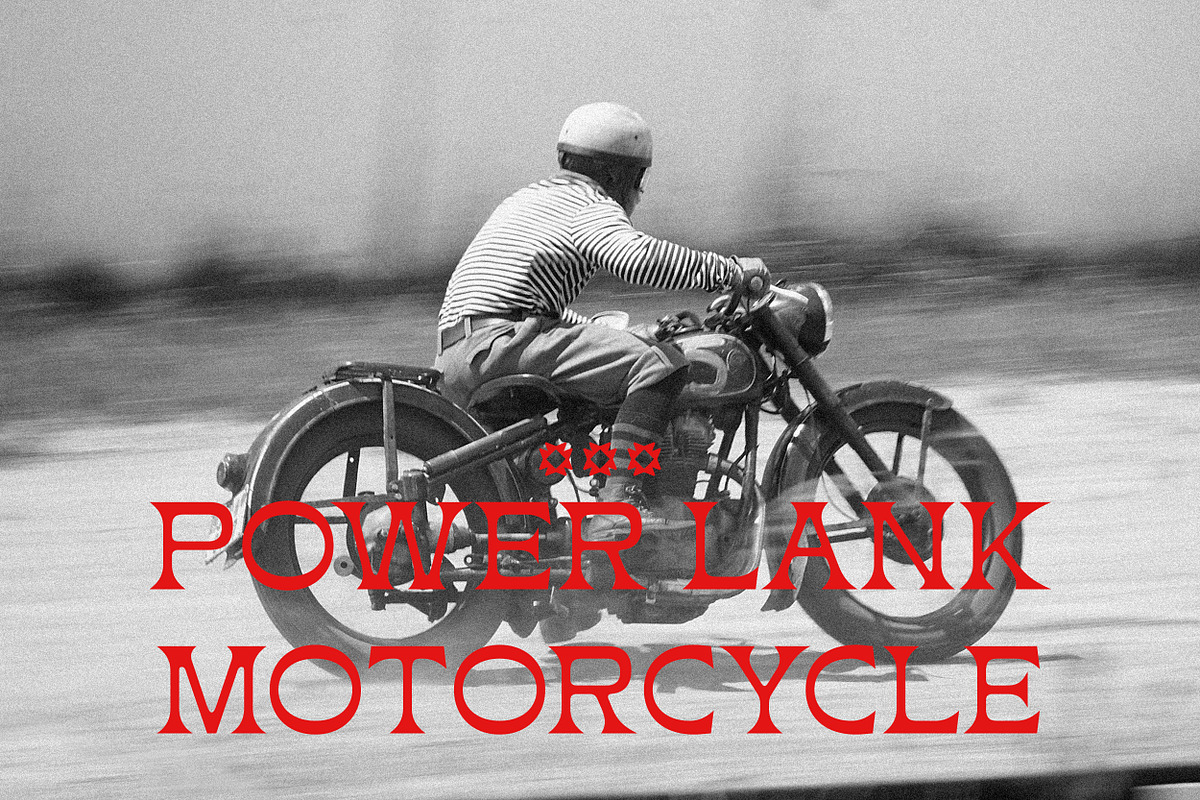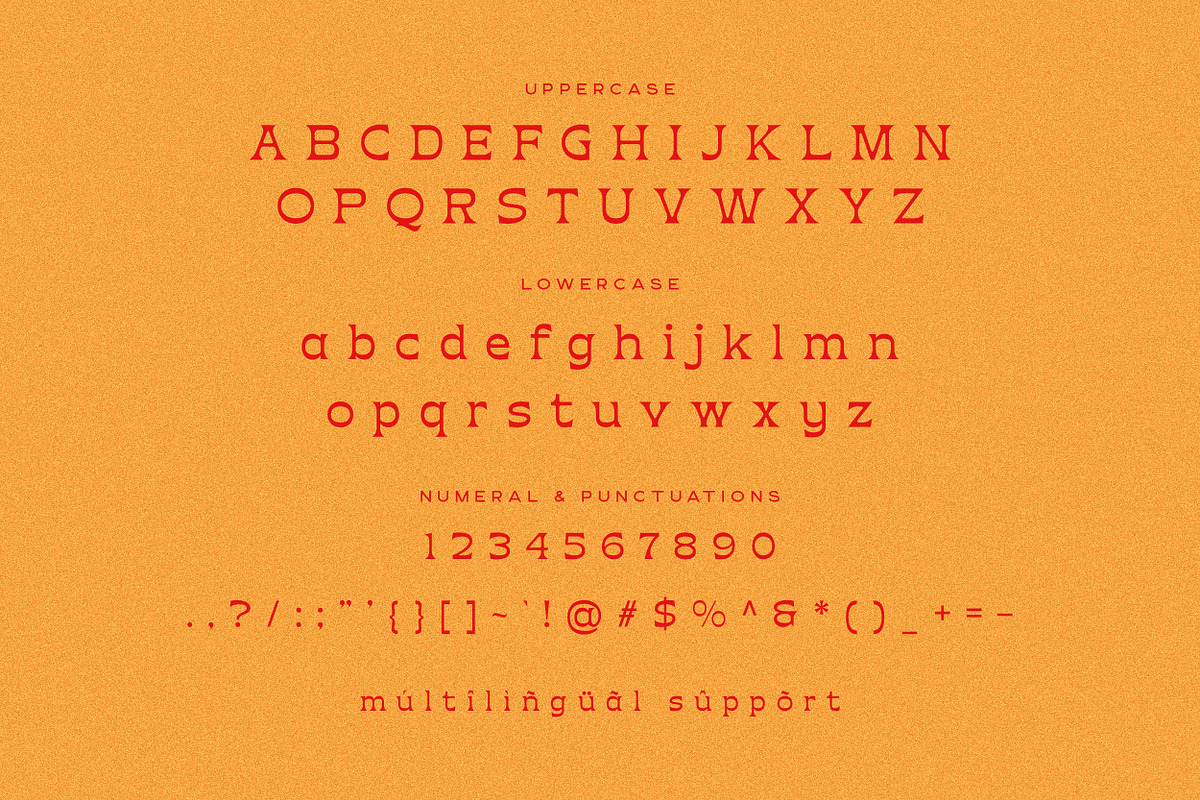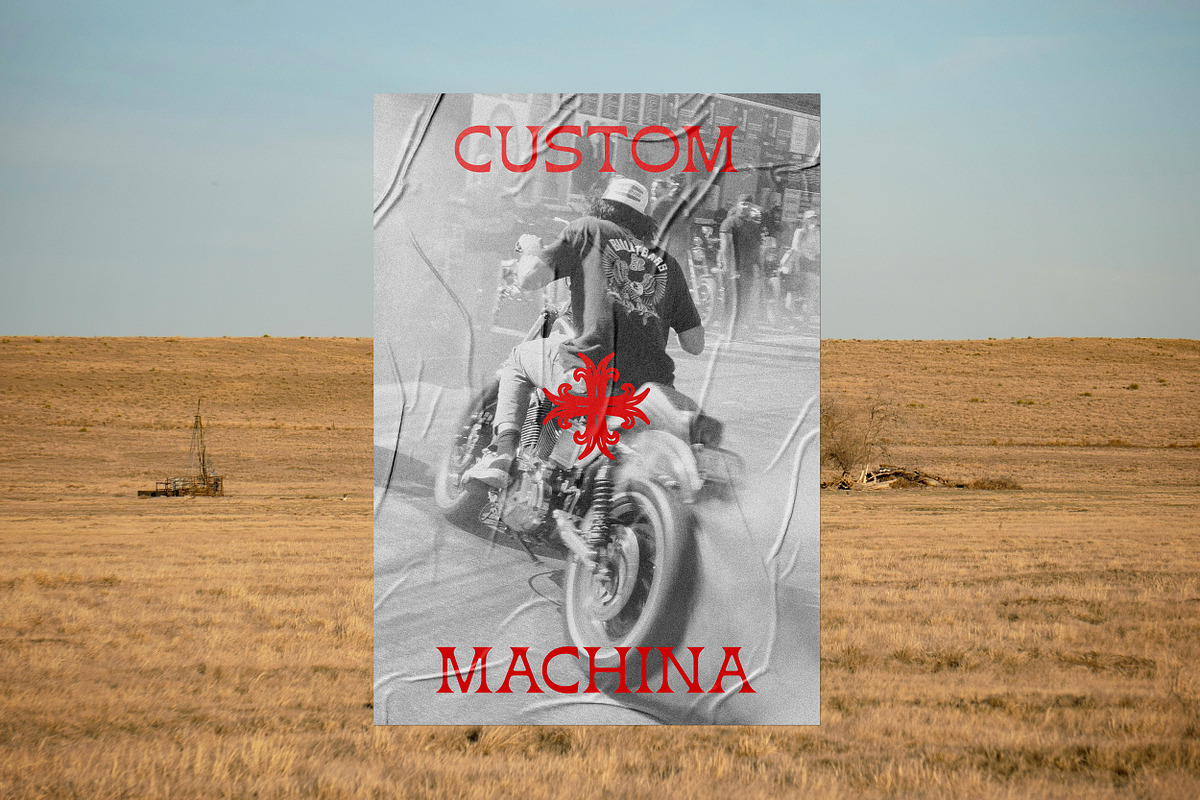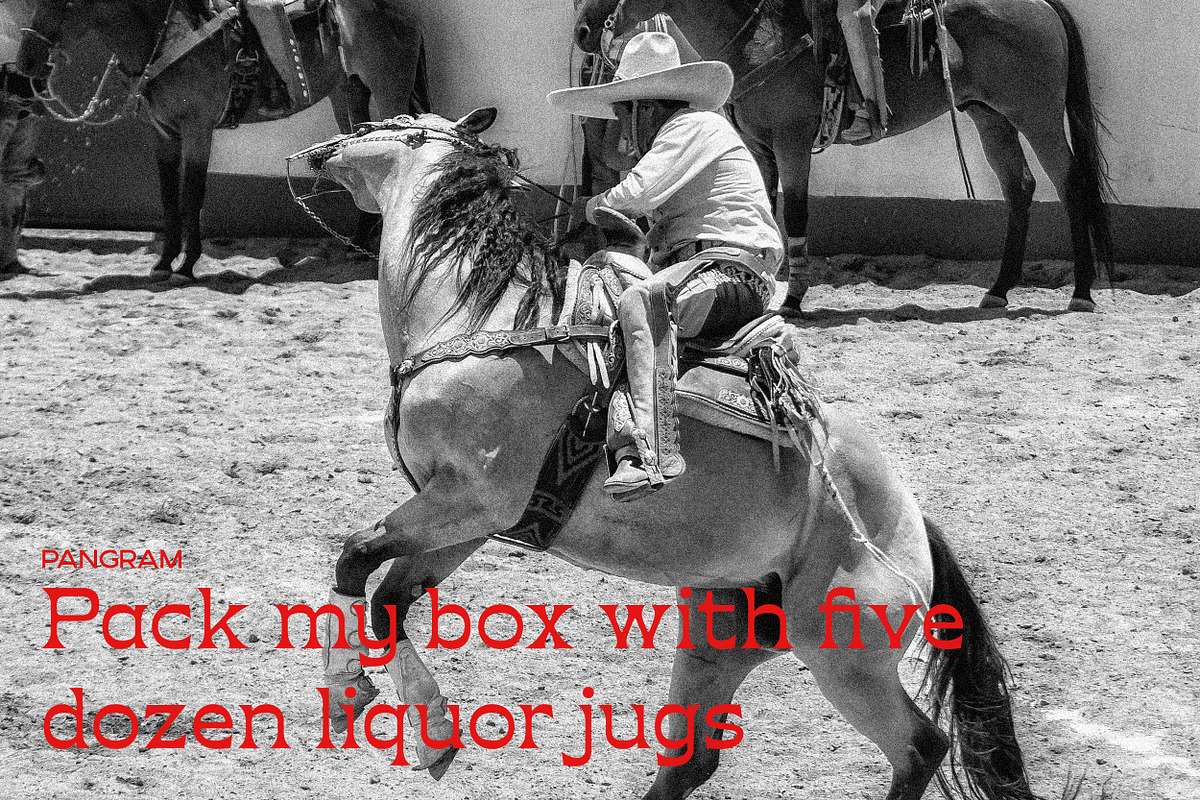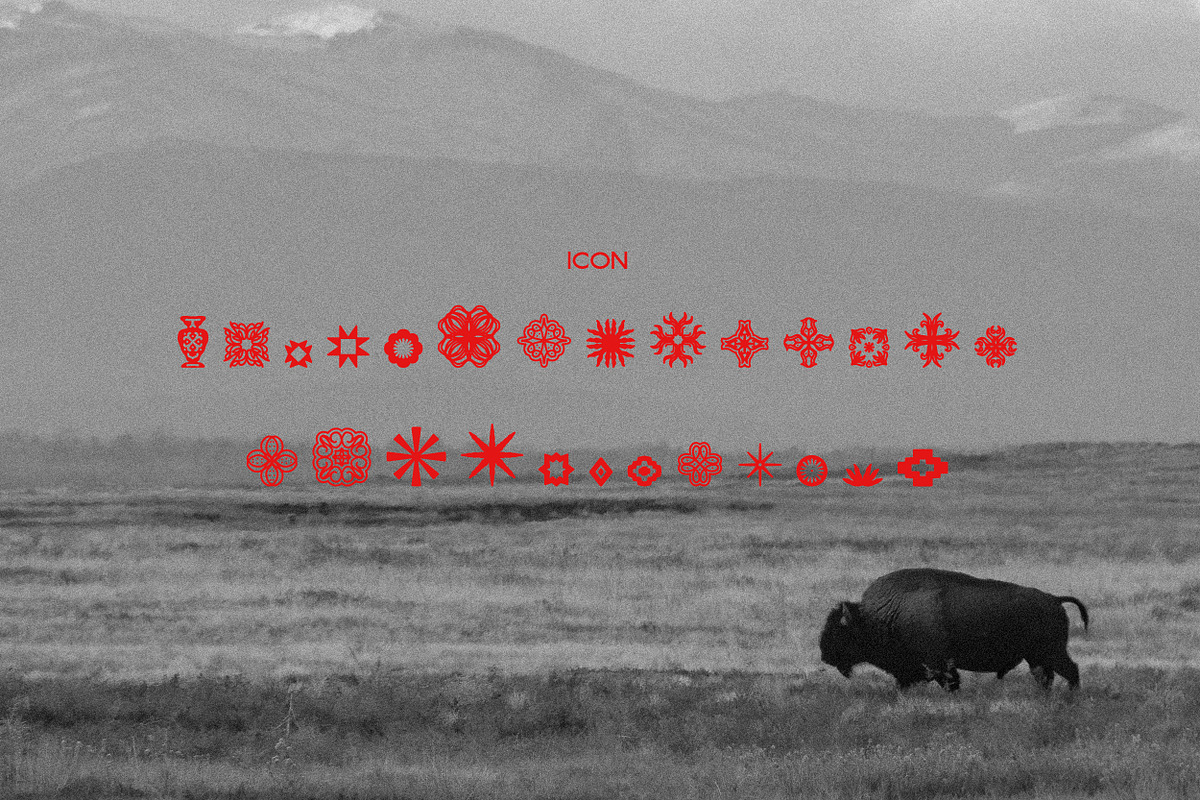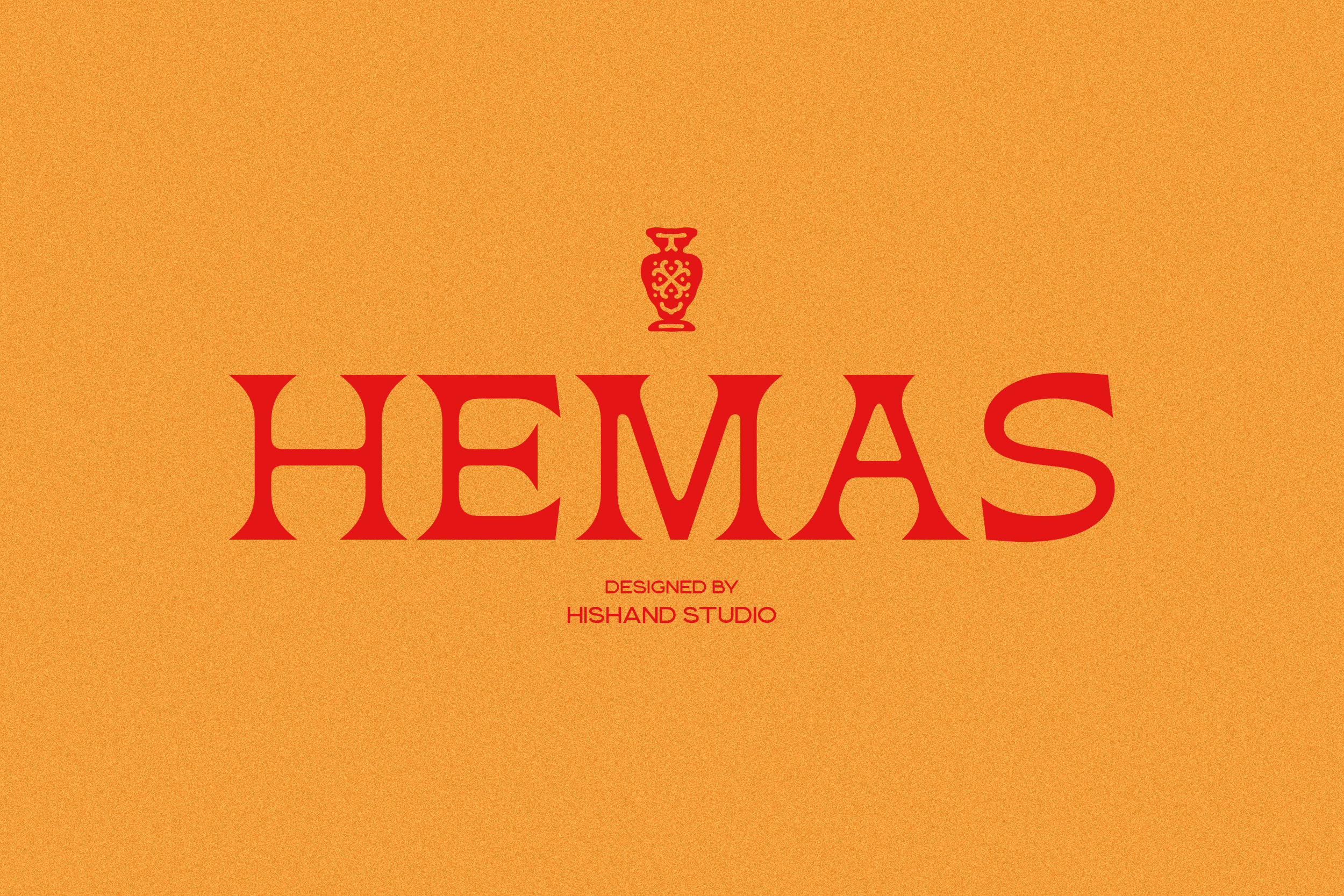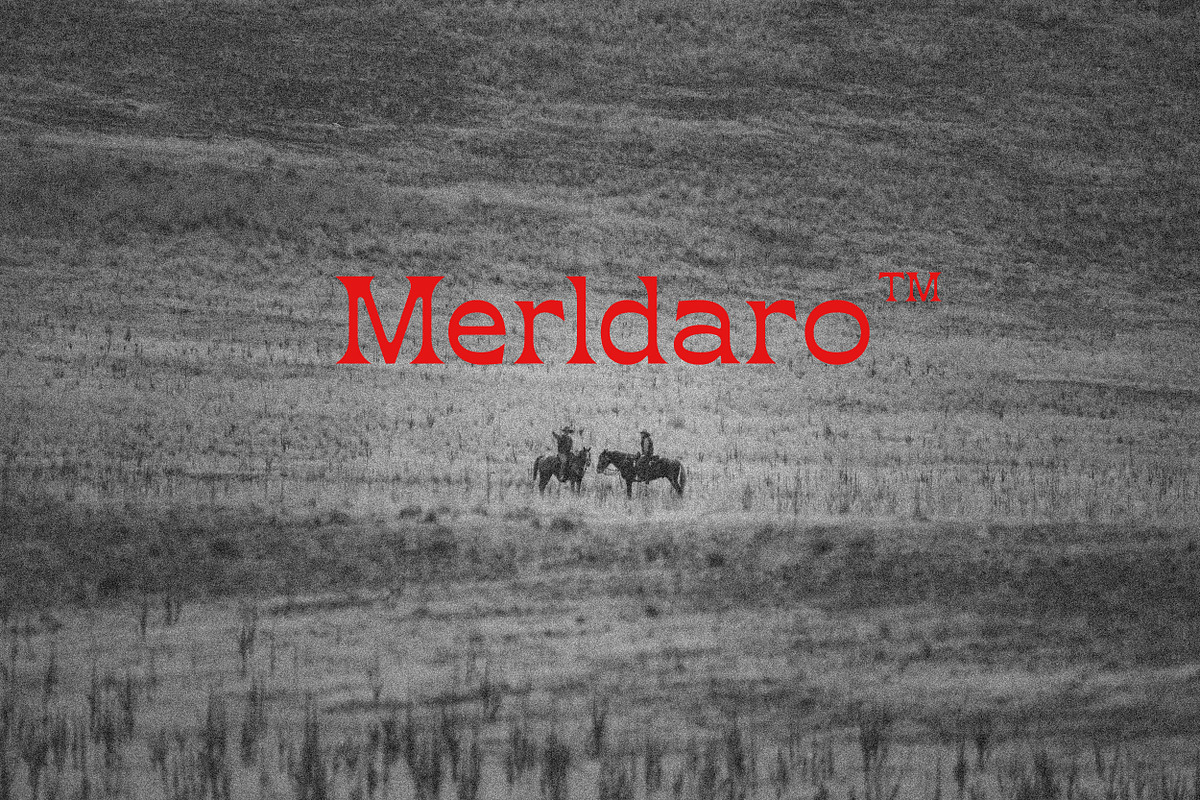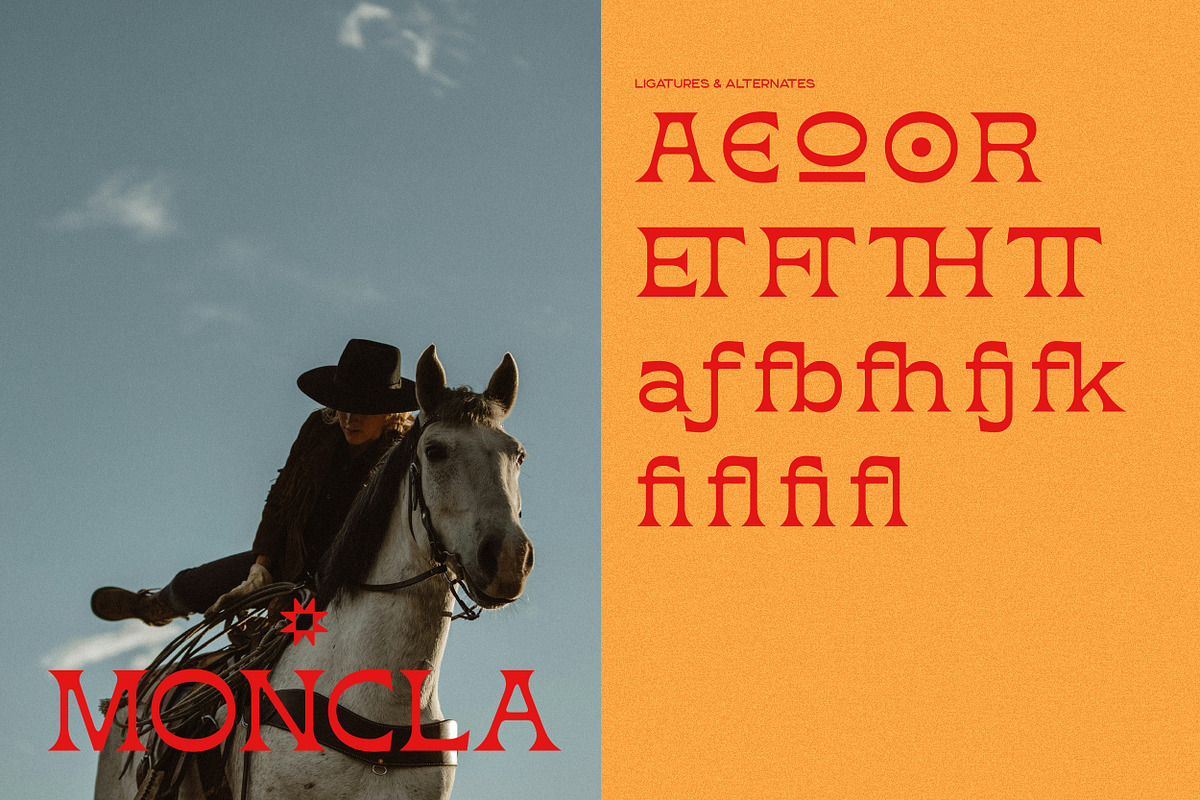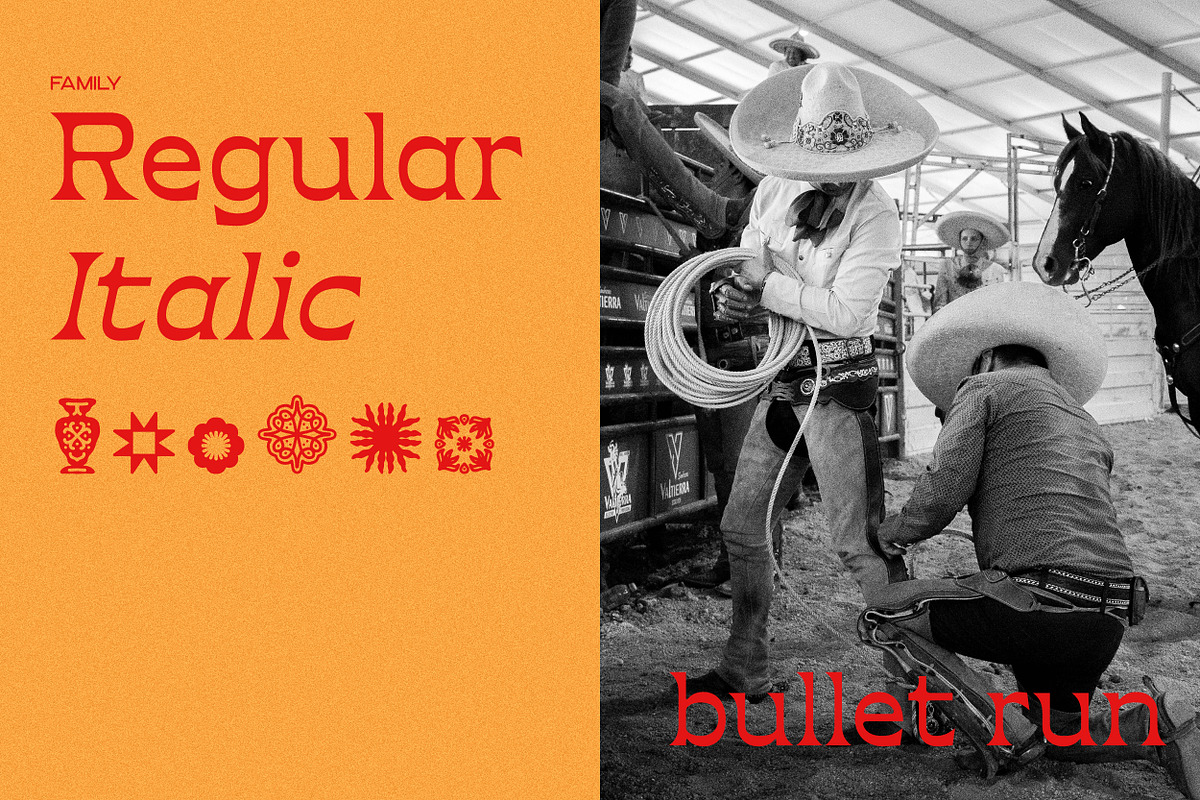
Hemas Serif Display Font
Hemas is a serif display typeface built to look aesthetic and effortlessly cool. Its letterforms carry a classic feel while staying distinctive enough to stand out in modern design work.
As a display face, Hemas works well for logotypes, packaging, editorial headlines, and branding that wants a refined, high end look. The serifs bring structure and elegance, giving it a versatile edge across a range of creative projects.
The family ships with 26 bundled icons, decorative marks that complement the typeface and can be used directly in your layouts.
If you're designing a label, a brand identity, or a statement headline, Hemas brings instant aesthetic character to your project. Complete with :
ligatures
alternates
regular
oblique
icon
kerning
multilingual support